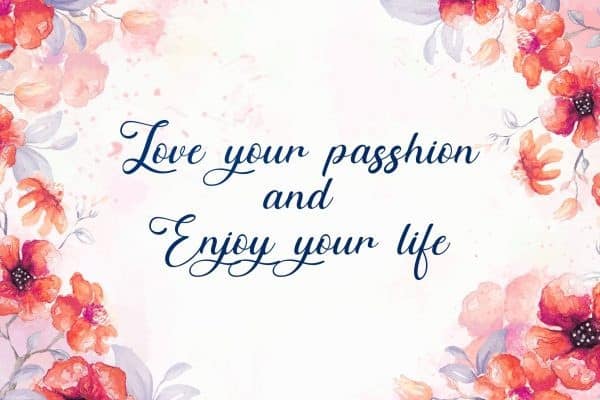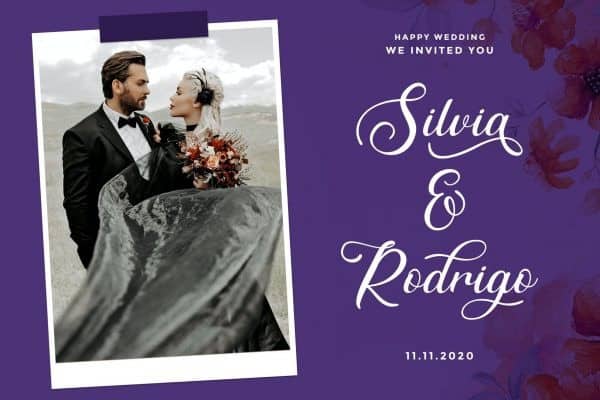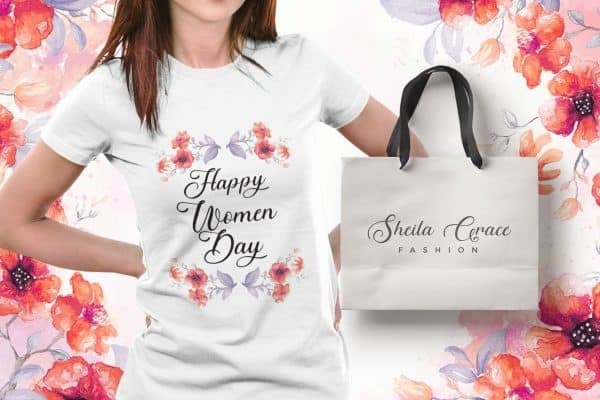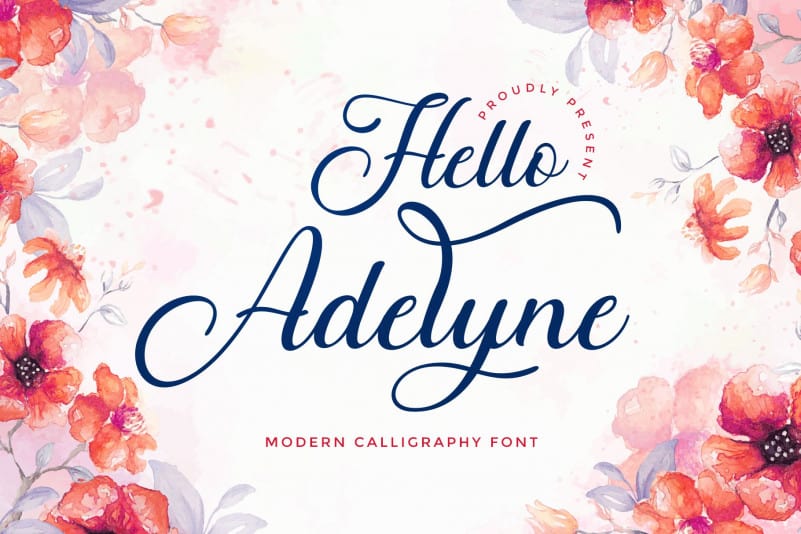
Introducing Hello Adelyne Calligraphy Font is a beautiful modern calligraphy wedding typeface. This font is feminime, elegant, messy and modern. Made from font designer named Rantautype. This typeface is lovely font which can be interpreted professional. Hello Adelyne is the great choice for watermark on wedding organizer, signature or signature logo design, quotes, album cover, business card and many other design project.